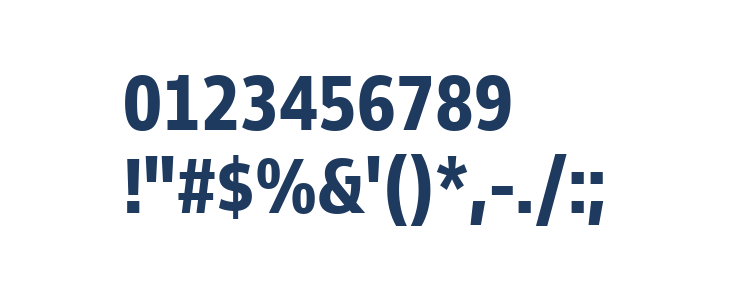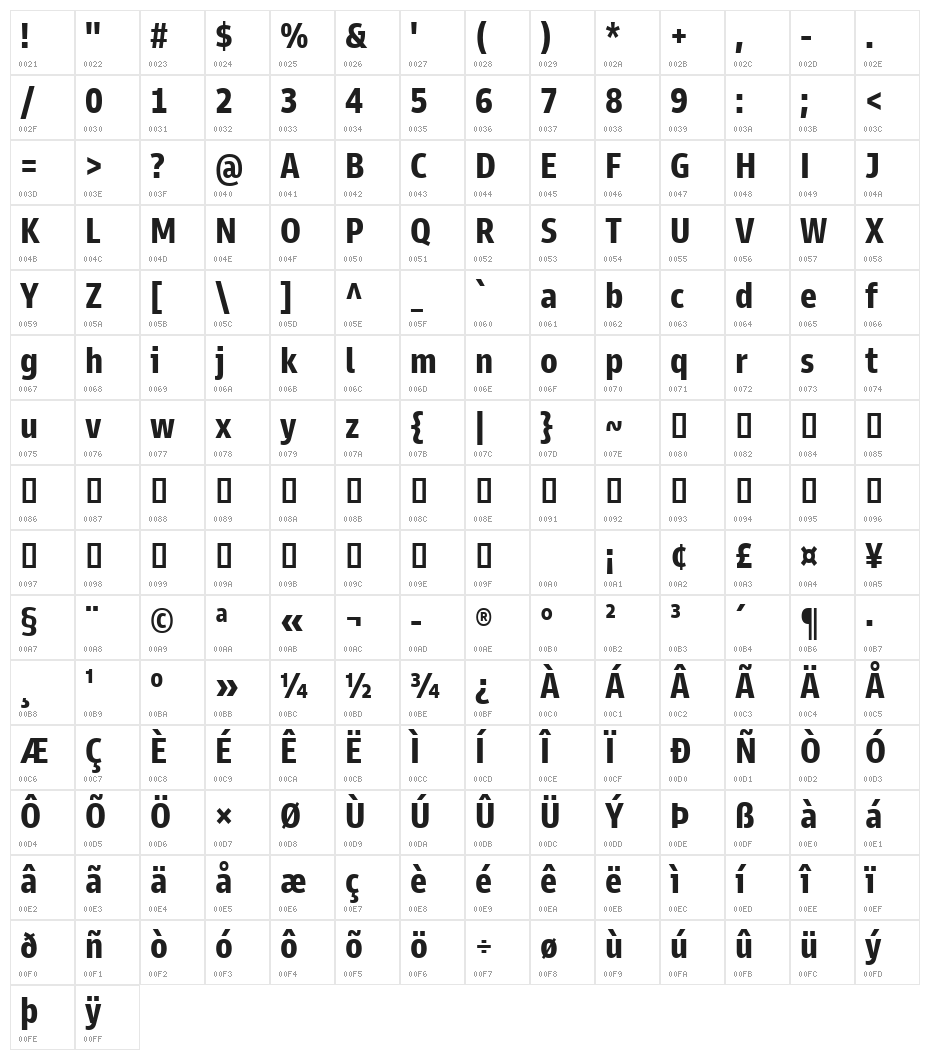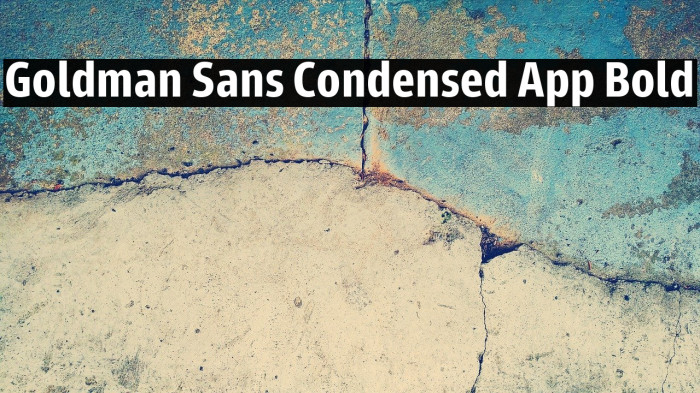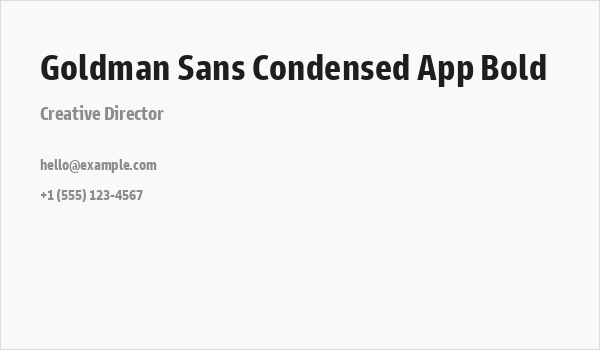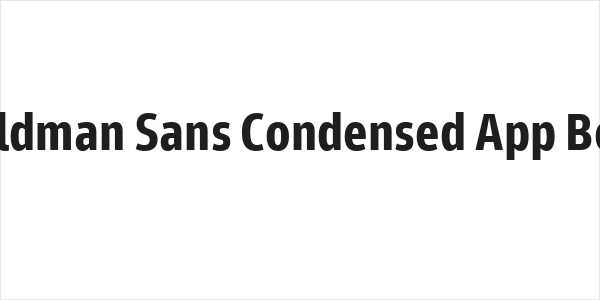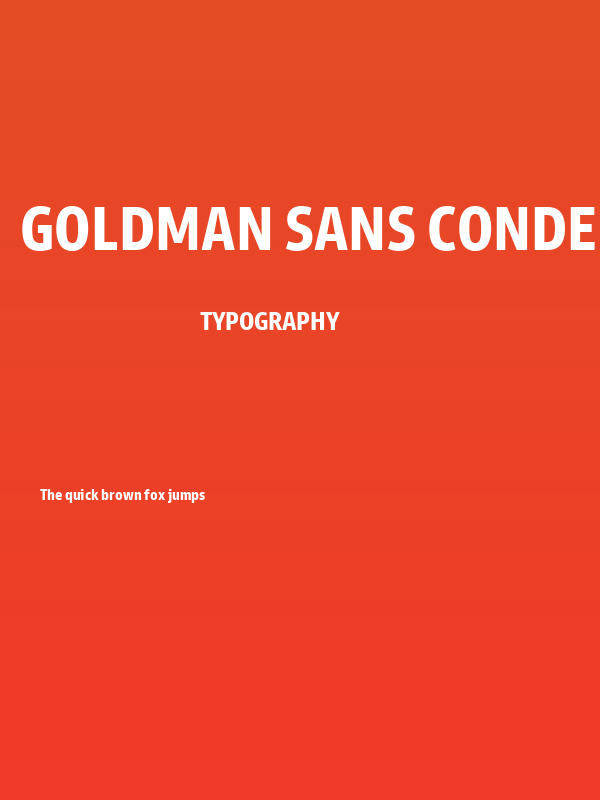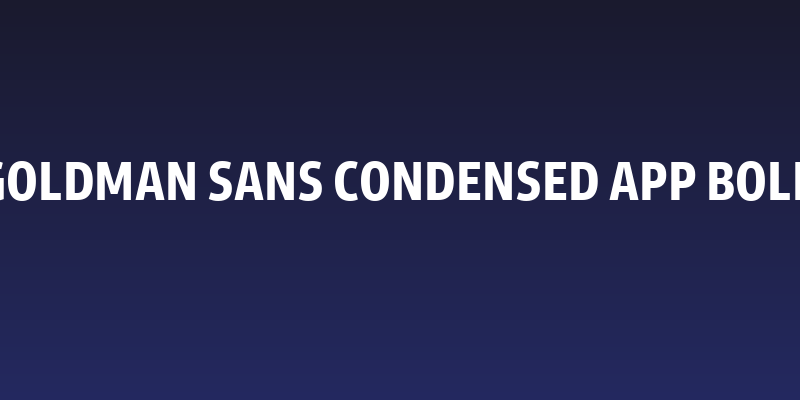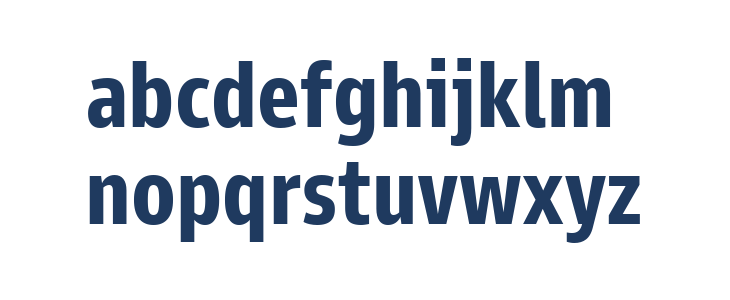
Goldman Sans Condensed App Bold Font
Goldman Sans Condensed App Bold Description
This font features a bold and condensed sans-serif style, offering a modern and robust appearance. Its clean lines and uniform stroke widths provide a strong visual impact, making it highly legible across various sizes. The uppercase and lowercase letters maintain a consistent height and spacing, contributing to its cohesive look. The numerals are clear and distinct, ensuring readability in numerical data. Special characters are well-defined, supporting a wide range of uses. This font's condensed nature allows for efficient use of space, making it ideal for headlines and titles where space is limited.
| Use Case | Headlines, Logos, Digital Interfaces |
| Proposed Projects | Ideal for headlines, advertising, branding, and digital interfaces where space efficiency and impact are crucial. |